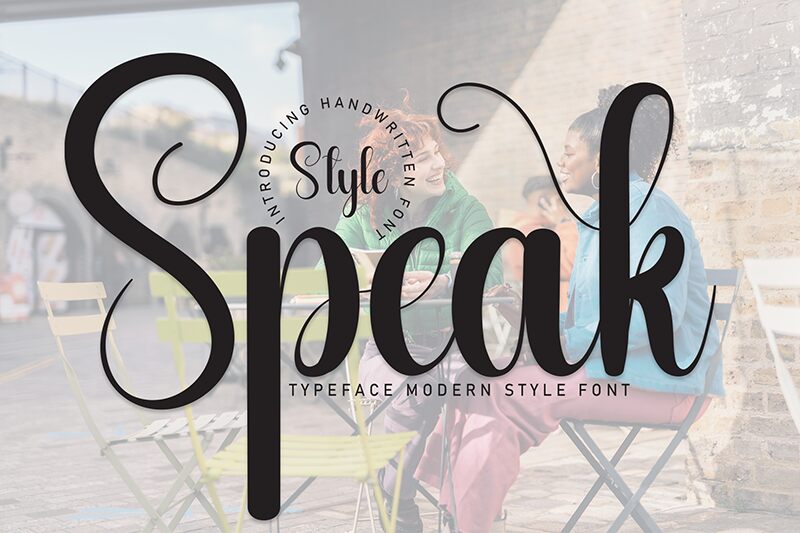
Speak
Speak font by Andi Moz is a calligraphy script characterized by flowing, elegant letters interconnected beautifully. Decorative strokes of varying thickness dance expressively forming words in an overall relaxed style. This condensed font also has some vintage feel only to complete its strong visual appeal.
The contemporary-looking Speak is naturally fit for decorative headlines, big or small sizes. It looks great on posters, book and album covers, branding projects, signatures, and logos. Have fun with it in magazine titles, advertising copies (both digital and printed), social media posts, interface designs etc. Enjoy this captivating free calligraphy font!